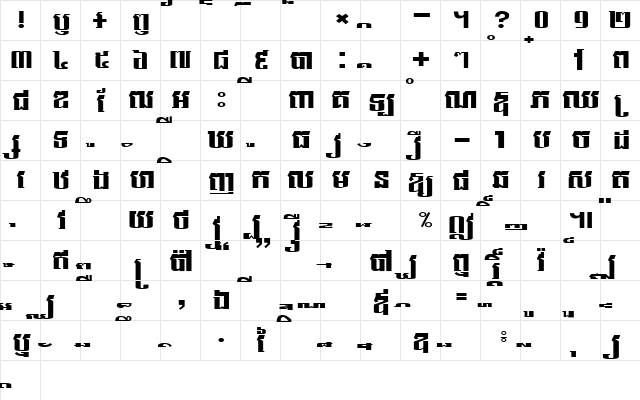
Norkor New Normal
Design Context for Norkor New Typeface
Norkor New is a composed and adaptable typeface that performs quietly and consistently across a wide range of design contexts.